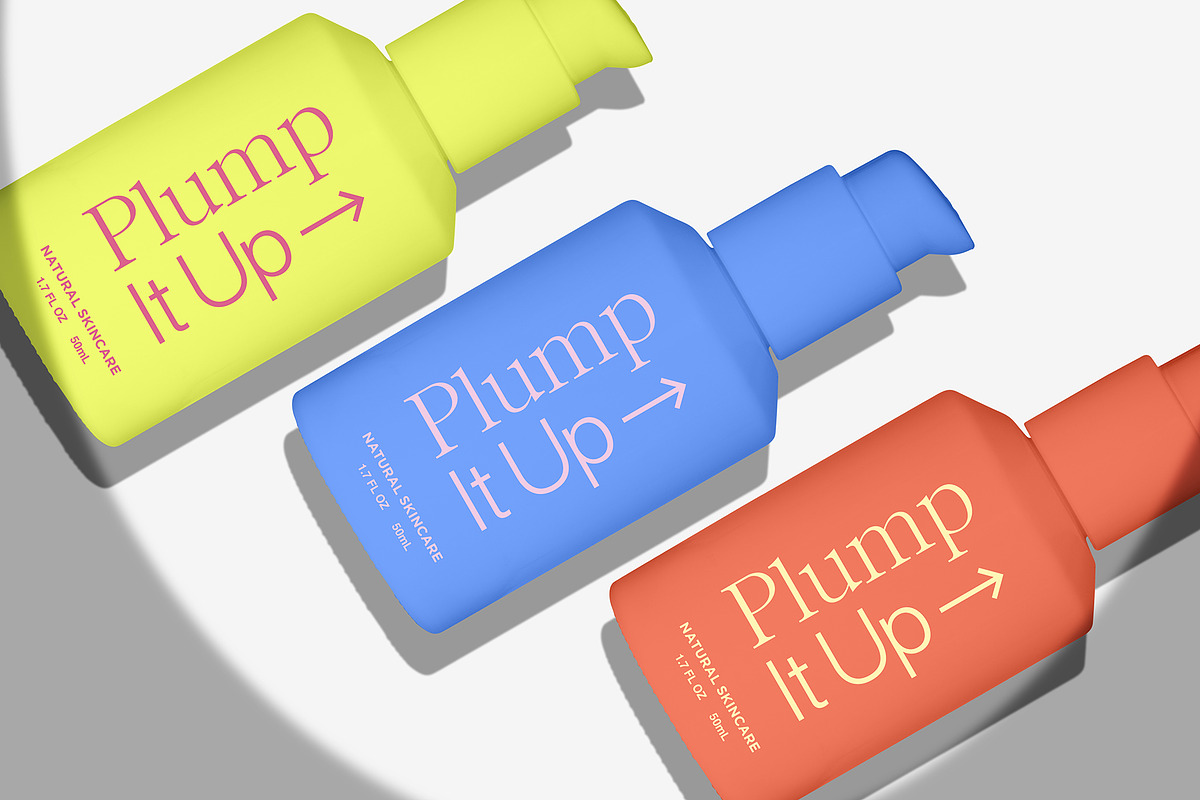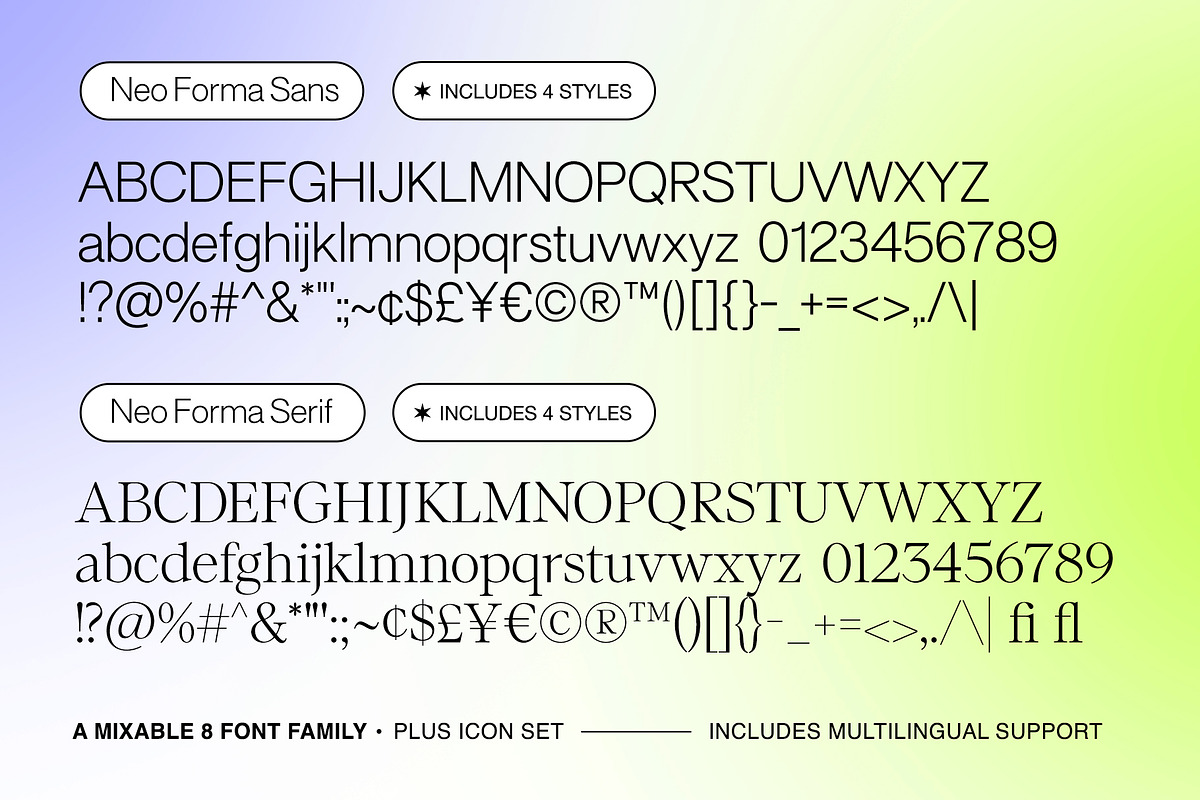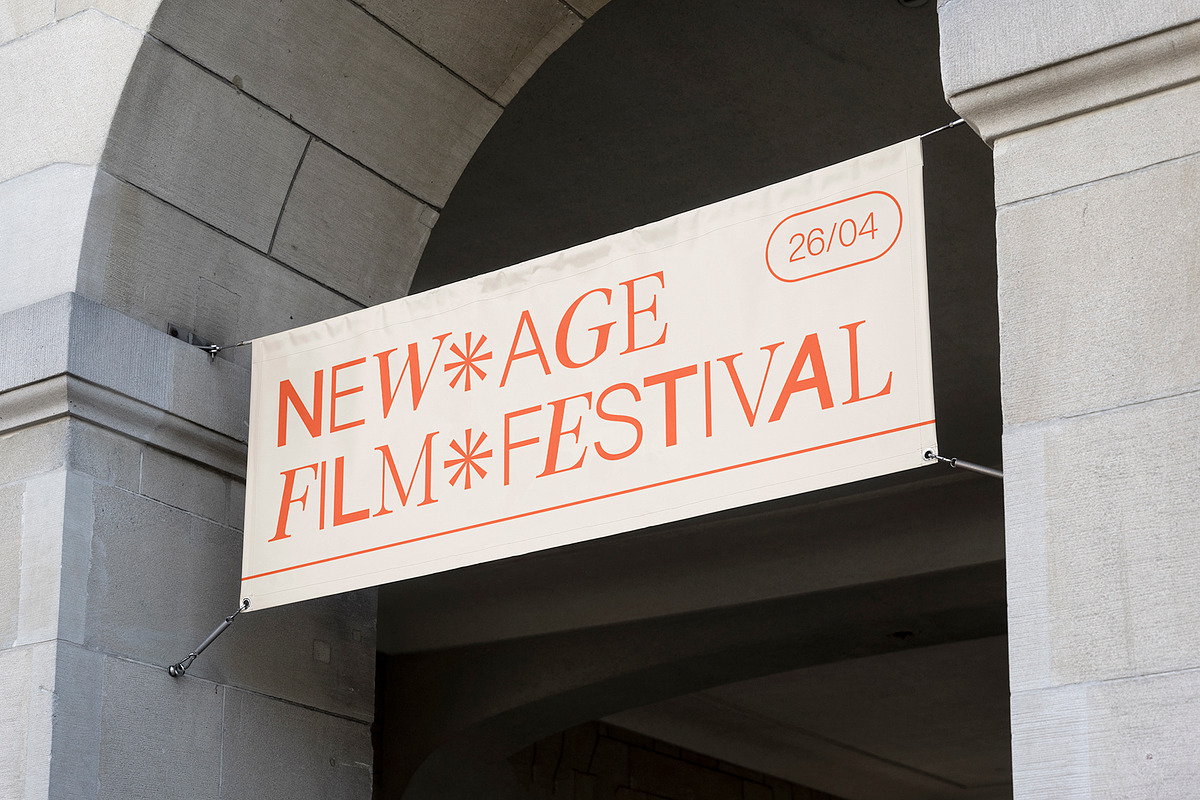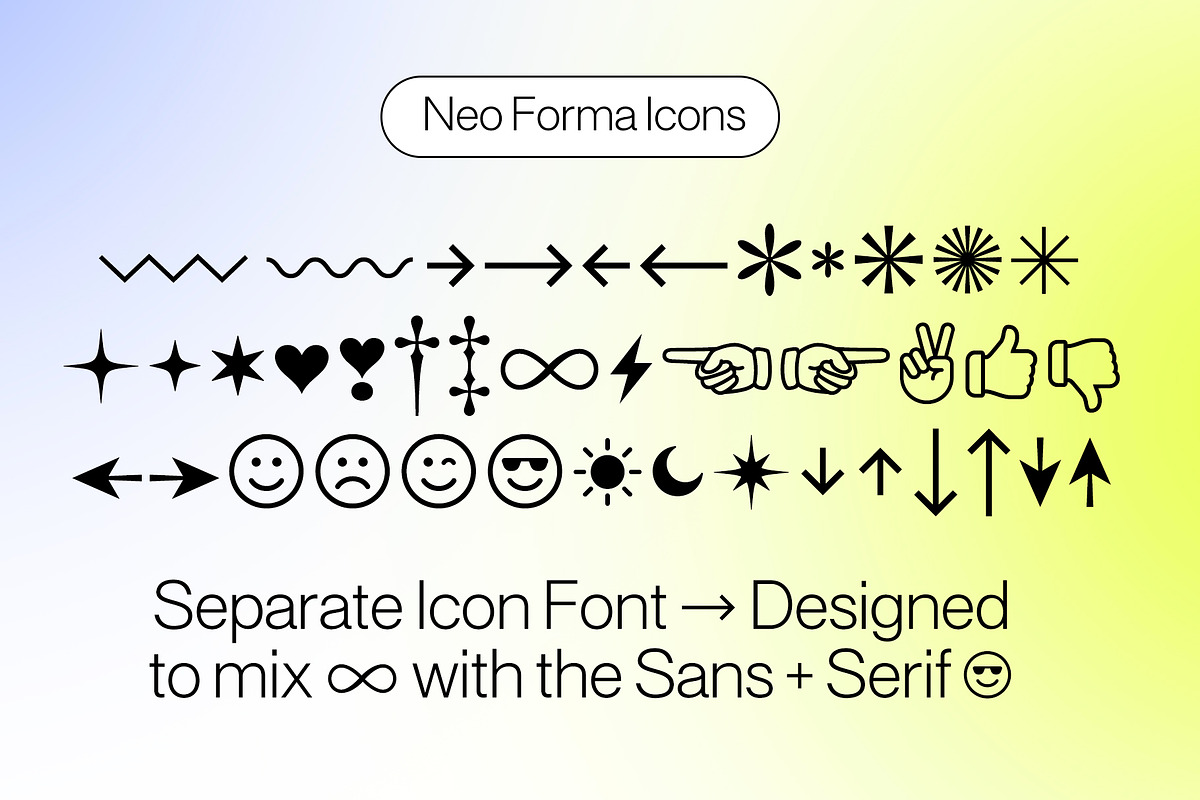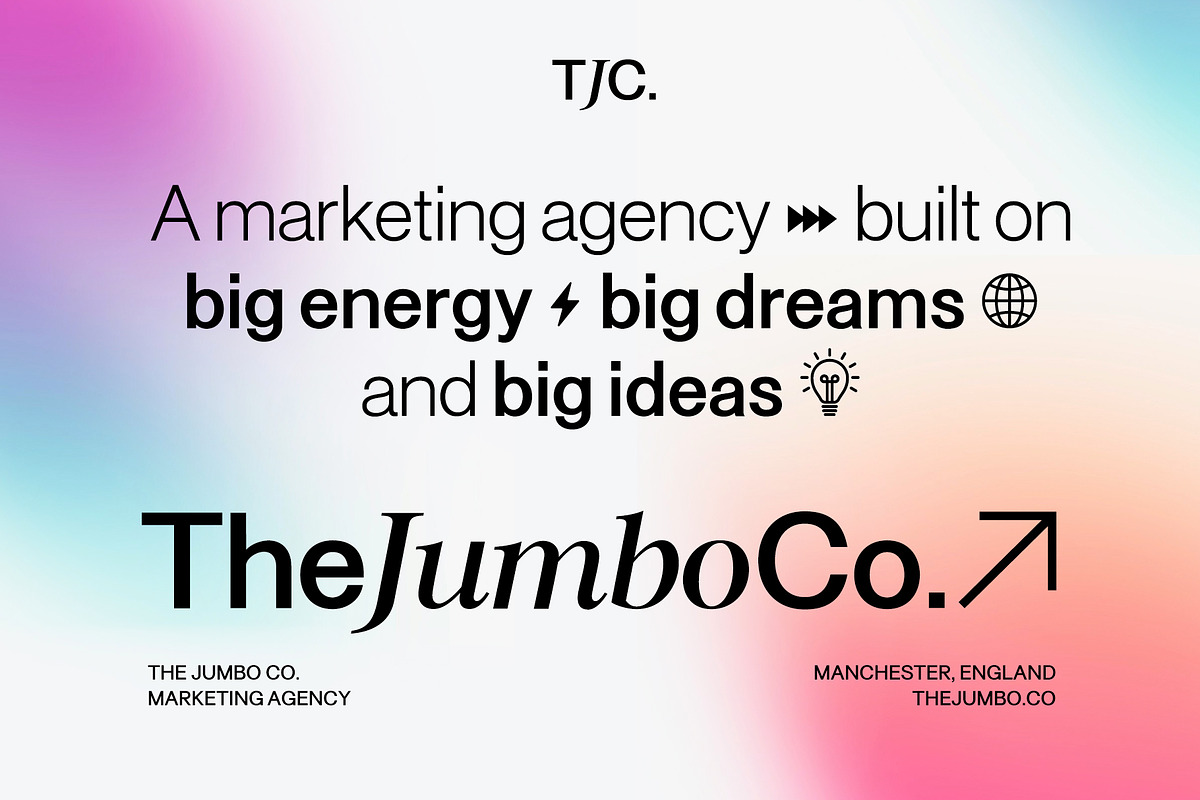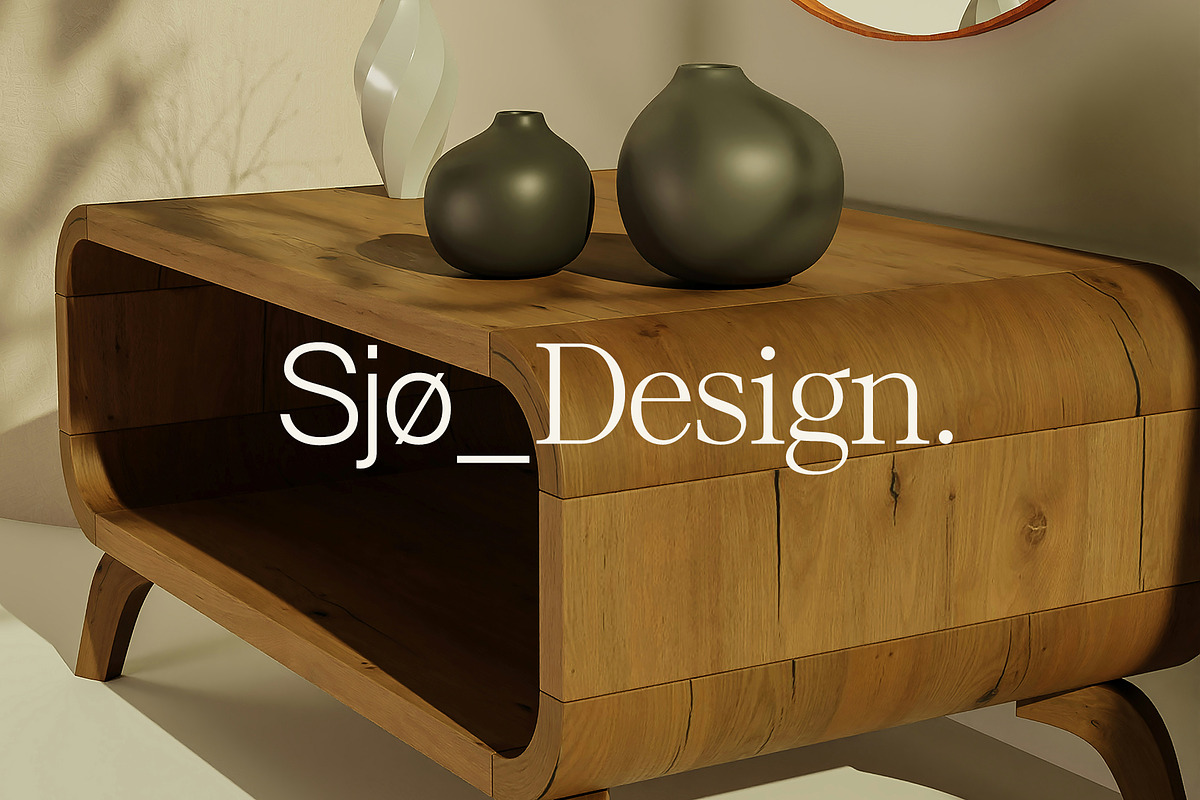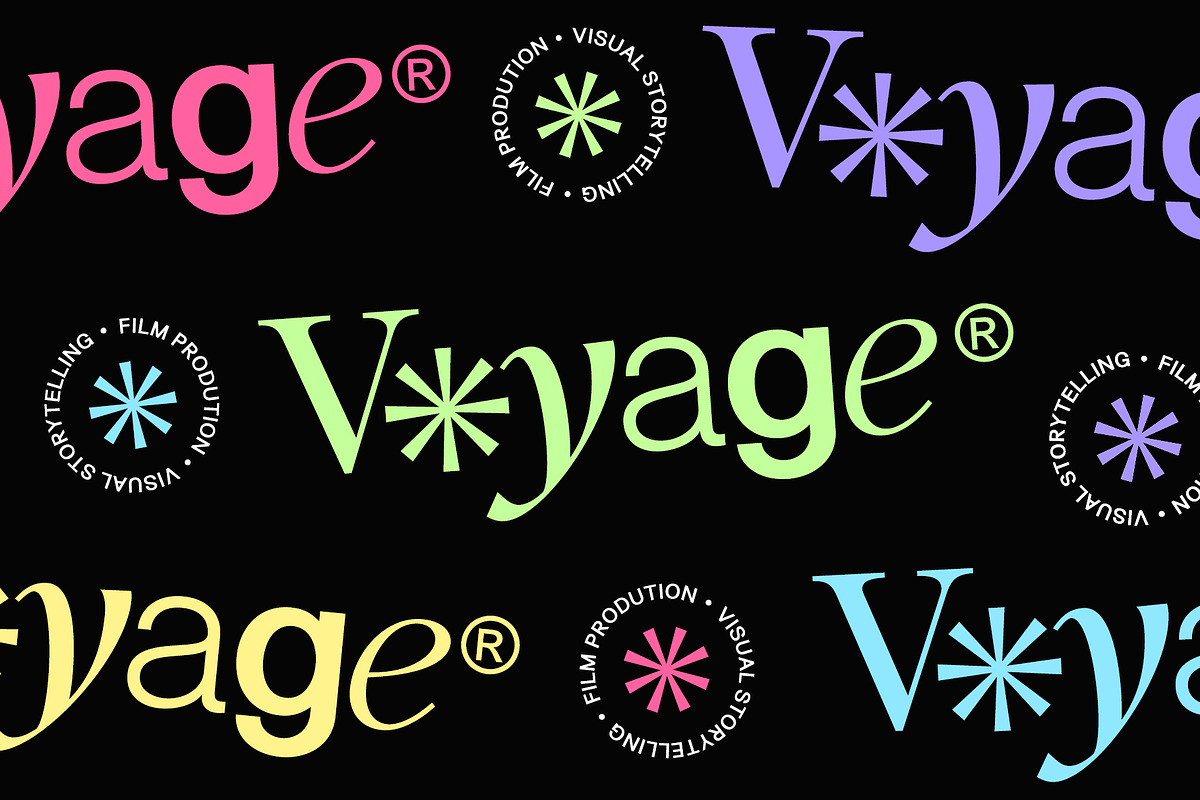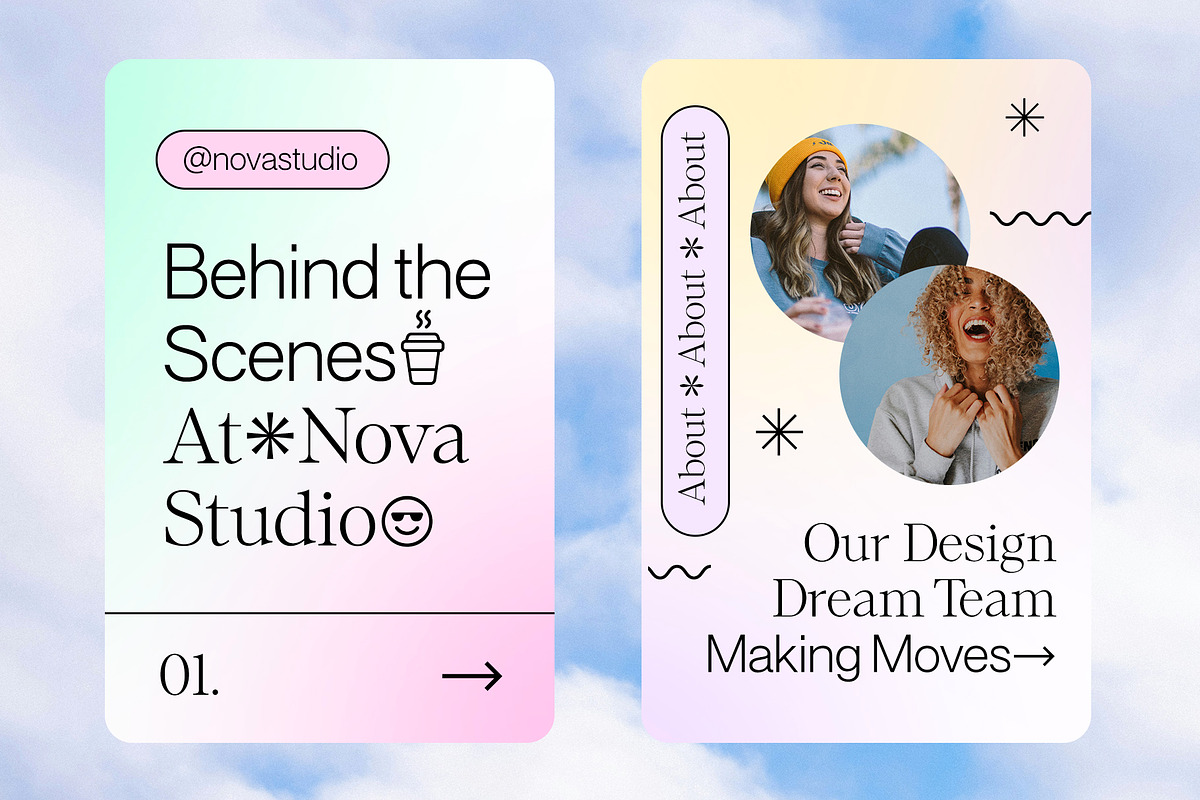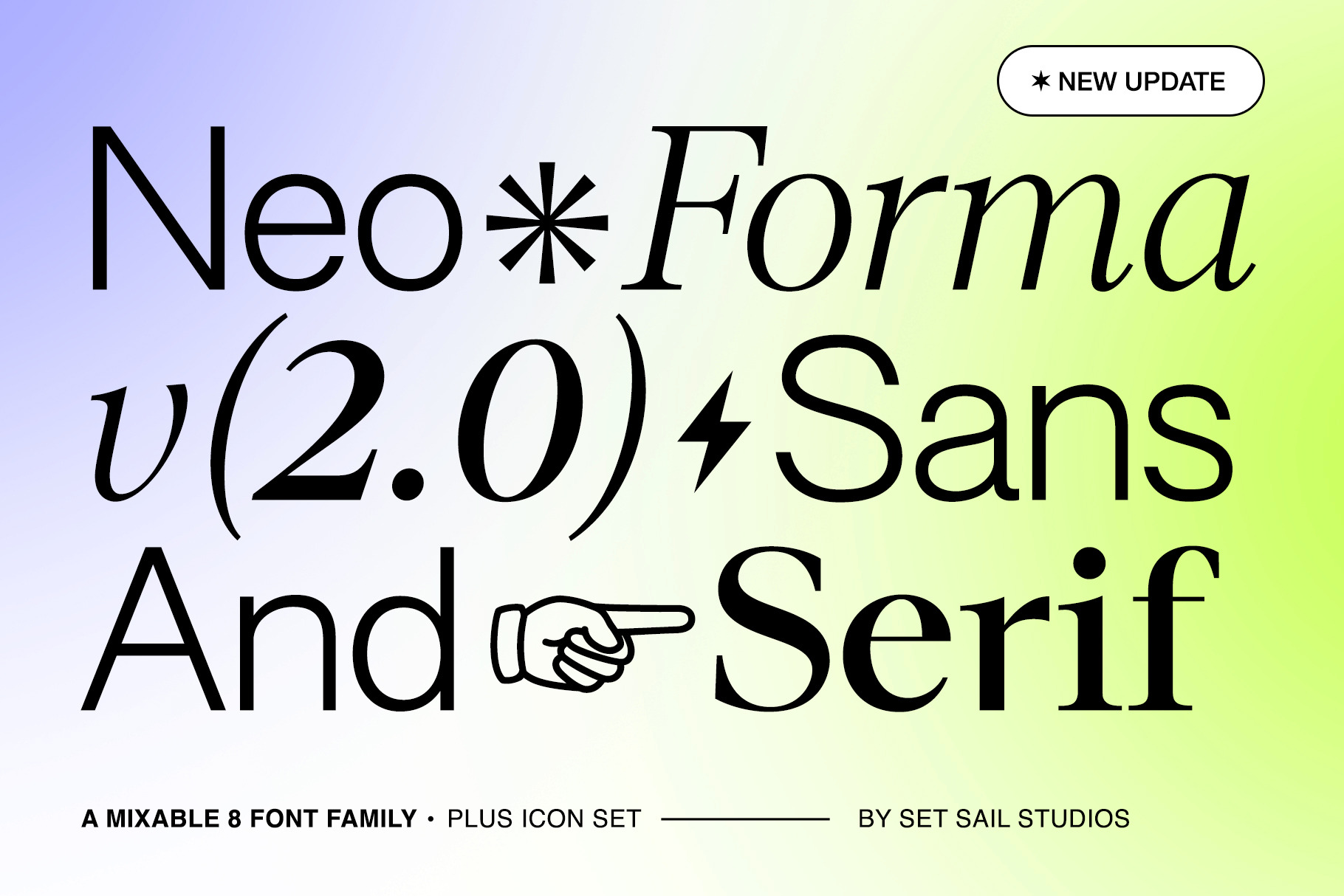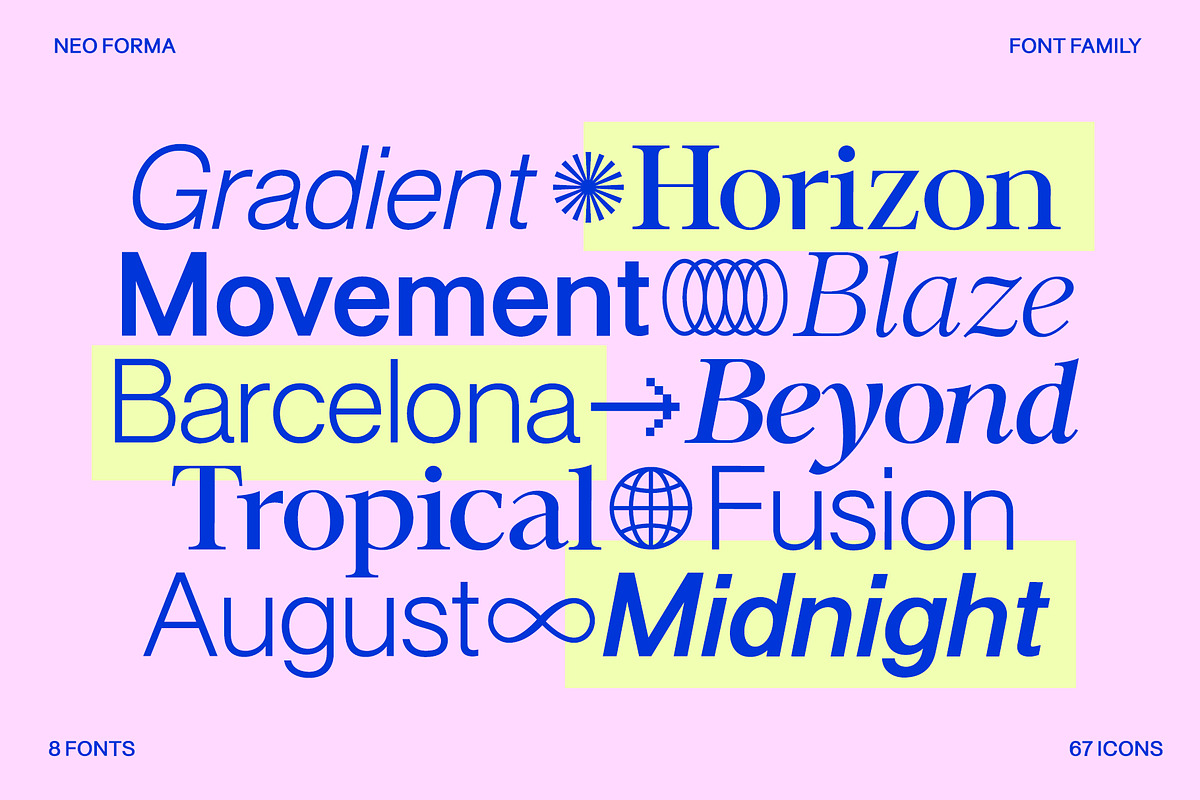
Neo Forma (NEW v2.0) 8 Fonts + Icons
🔥 New Update - Bold and Italic Styles for Sans & Serif fonts now included - giving you 8 fonts in total! 27 new Icons also added to the Icon font!
Introducing the Neo Forma Font Duo, a perfectly matched pair of modern Sans & Serif fonts. Choosing between a clean sans and a stylish serif, or finding two which compliment each other can be tricky. Neo Forma is here to help! These fonts have been carefully designed side-by-side, with matching weights and metrics—allowing you to pair them together for a contemporary layout, or even mix them together for something a little more avant-garde. Also included is a separate Icon Font containing 67 stars, arrows, symbols and emojis, again designed to work effortlessly alongside your Sans & Serif fonts. Pop one of these icons alongside your text to add some extra flavour and personality, or even use them to create playful backgrounds. The Neo Forma is built as an all-inclusive typography package for your branding, website, print and social media projects.
Language Support • English, French, Italian, Spanish, Portuguese, German, Swedish, Norwegian, Danish, Dutch, Finnish, Indonesian, Malay, Hungarian, Polish, Croatian, Turkish, Romanian, Czech, Latvian, Lithuanian, Slovak, Slovenian.